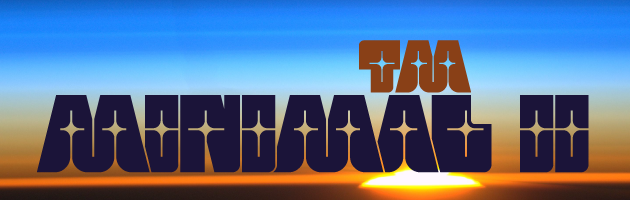
tm Minimal II
by thalamic
Constructed on the bones of fs minimal.
This makes me feel like eating bubblegum in outerspace. I like it!
Beautiful heavy glyphs.
Nice job minimum!